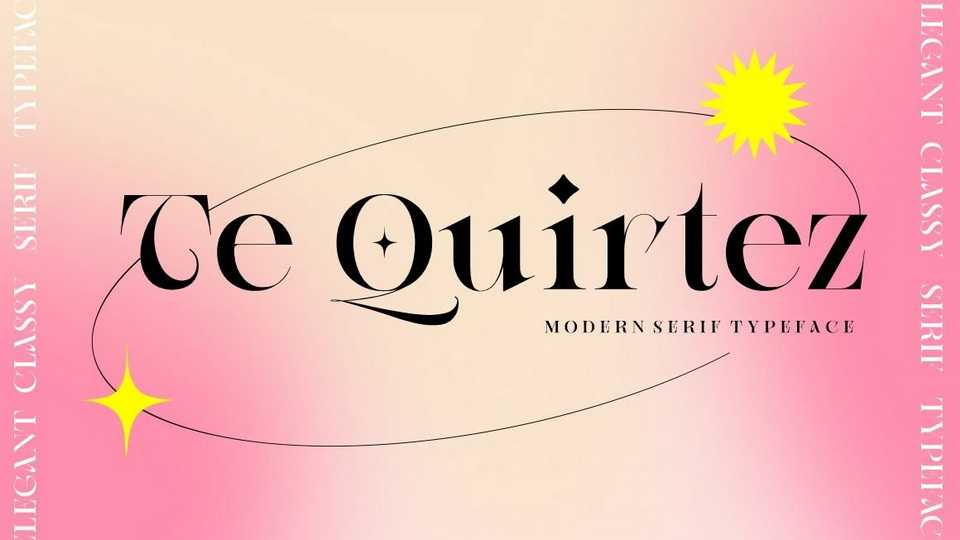
Download Te Quirtez font, an elegant and classy serif typeface with strong character. Te Quirtez is perfect for branding, logo, packaging, header, title, t-shirt design, poster, band, music, album, and more.
Designer: Reyrey Blue